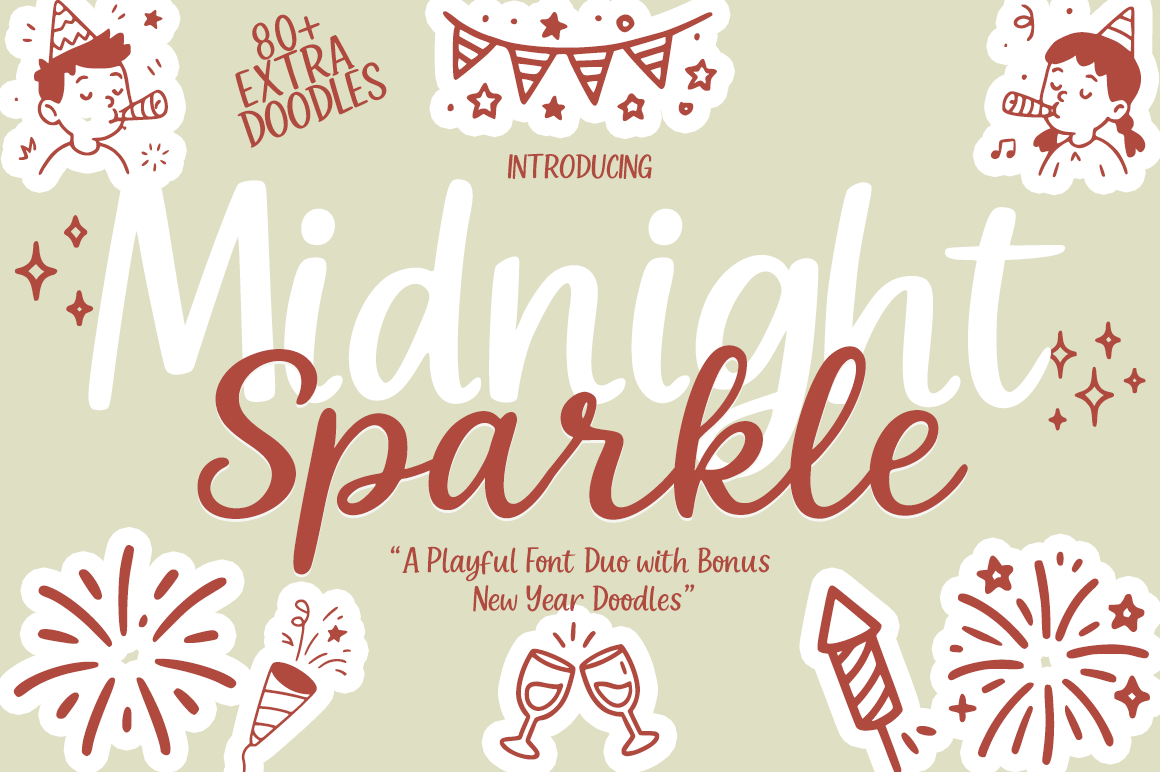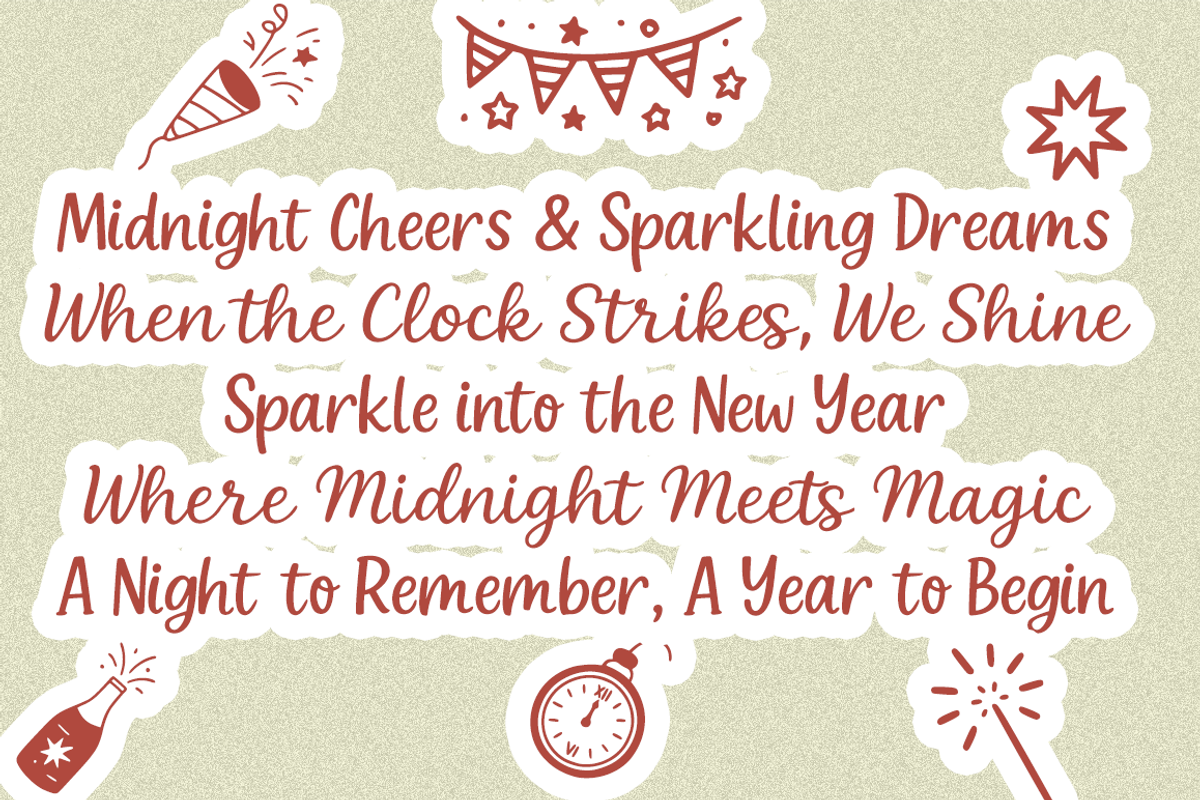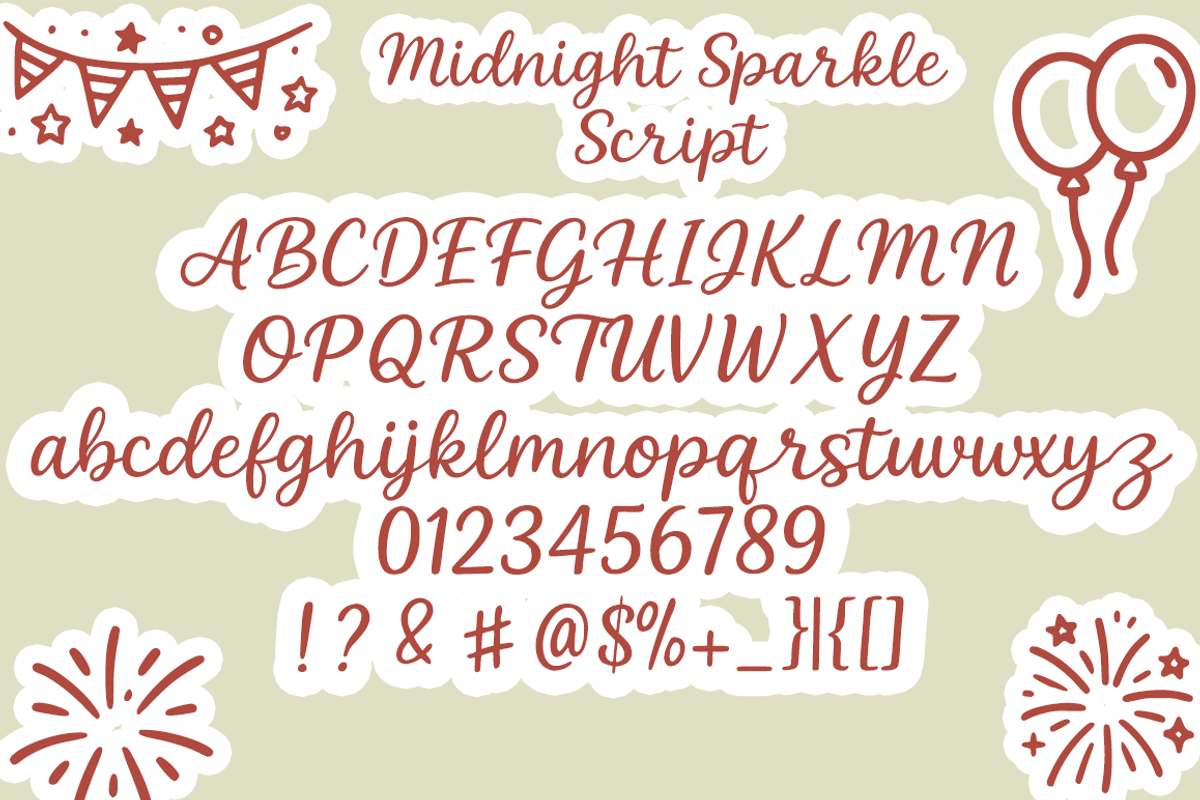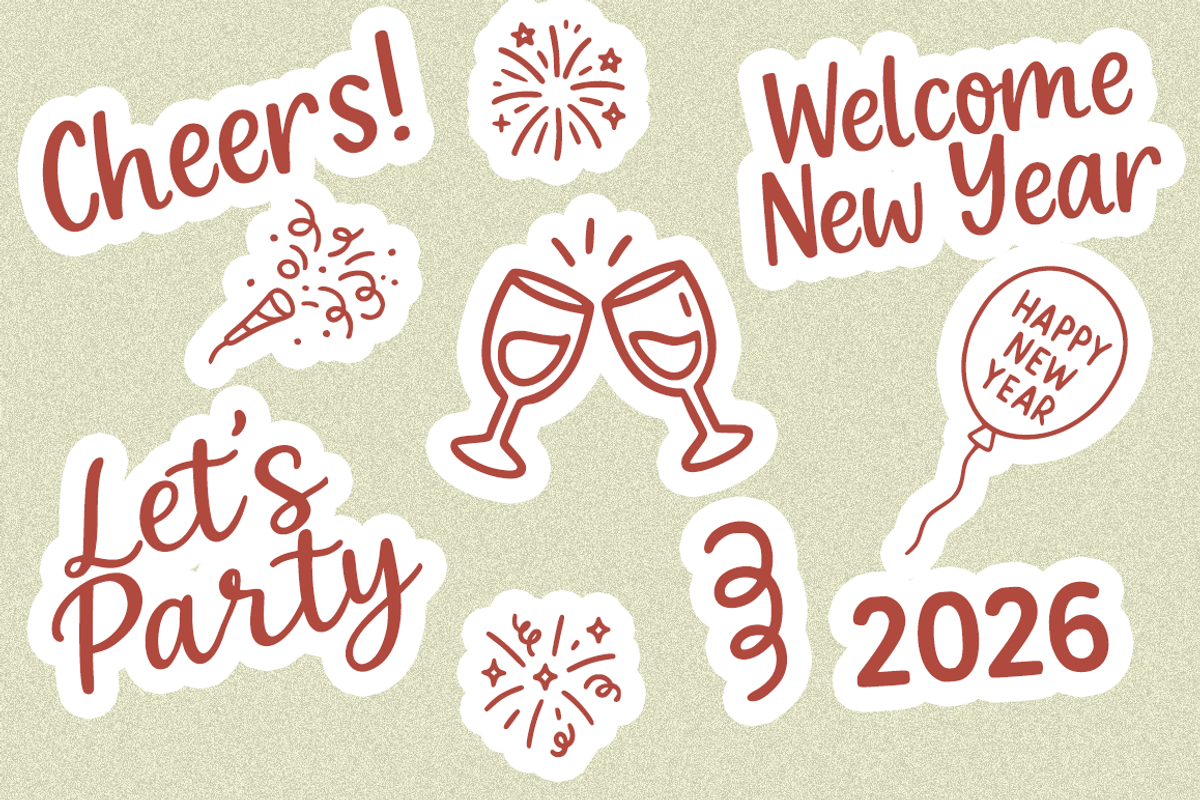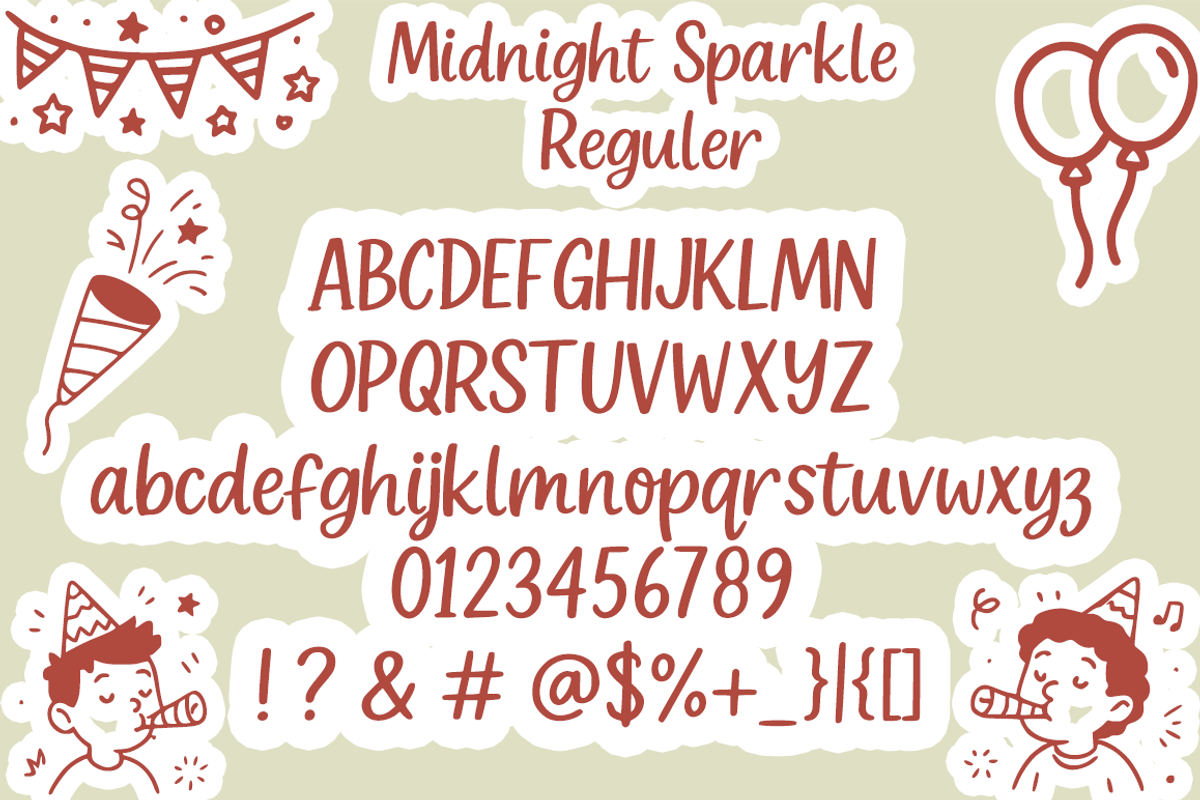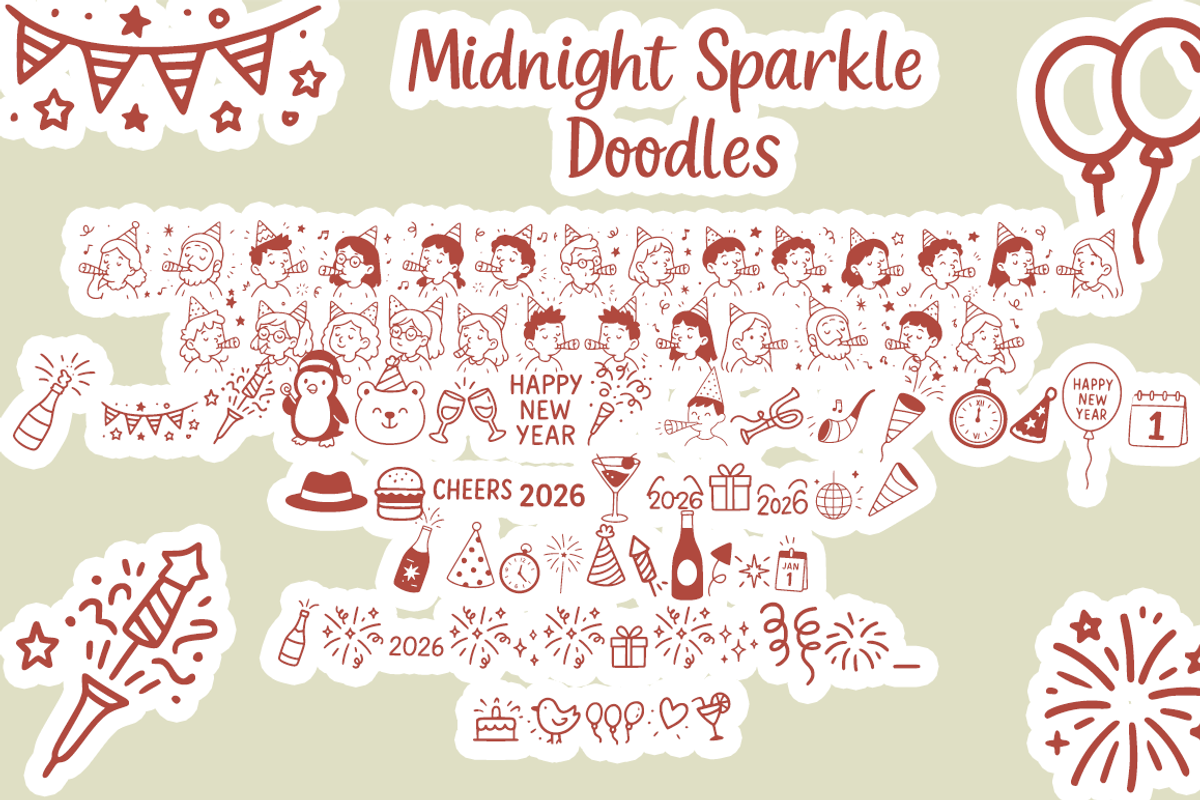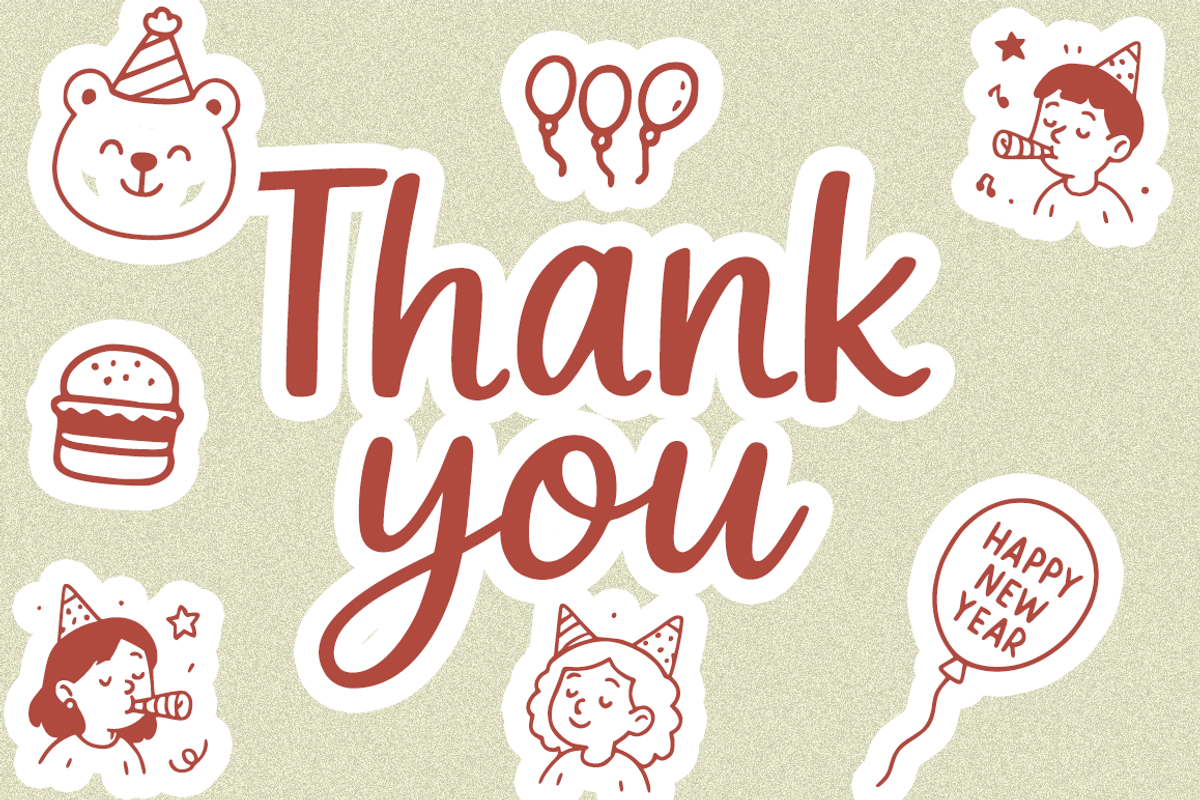
Midnight Sparkle – Festive Font Duo
Midnight Sparkle – Festive Font Duo + Extra New Year Doodles
Midnight Sparkle is a playful and festive font duo designed to bring joyful New Year celebrations to life. This typeface set combines a bold, friendly display font with a smooth handwritten script, creating a perfect balance for eye-catching headlines and charming accents.
Paired with 80+ hand-drawn New Year doodles, Midnight Sparkle offers a complete creative toolkit for seasonal designs. The doodles include festive elements such as fireworks, party icons, confetti, banners, and celebration details that add extra sparkle to any project.
This font duo is ideal for New Year posters, greeting cards, stickers, social media graphics, invitations, packaging, and festive branding projects.